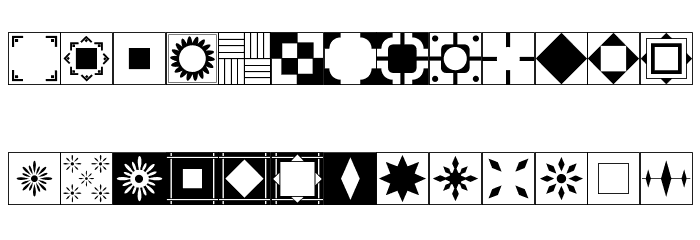
Floor Tile Patterns, Pt. 2 JL Font
Floor Tile Patterns, Pt. 2 JL Description
A decorative display font composed of geometric tile patterns, each character represented by a unique black-and-white floor tile motif with sharp lines, high contrast, and intricate symmetrical designs.
Geometric tile-patterned decorative display font from Dingbats fonts.
- Proposed Projects: Ideal for borders, decorative headings, invitations, packaging, and ornamental design projects.
- Overall Style: Decorative, Geometric, Ornamental
- Use Case: Borders, Decorative accents, Headlines, Posters